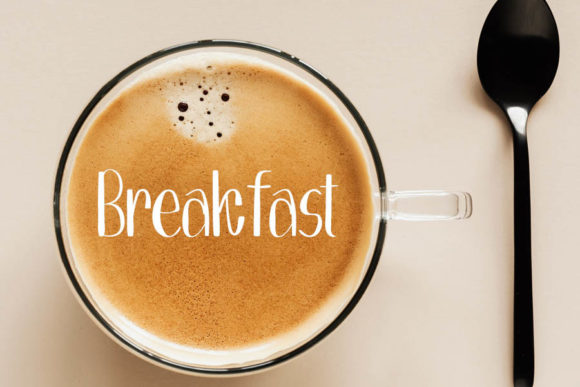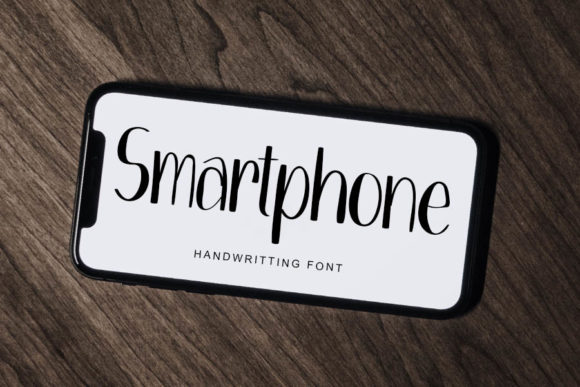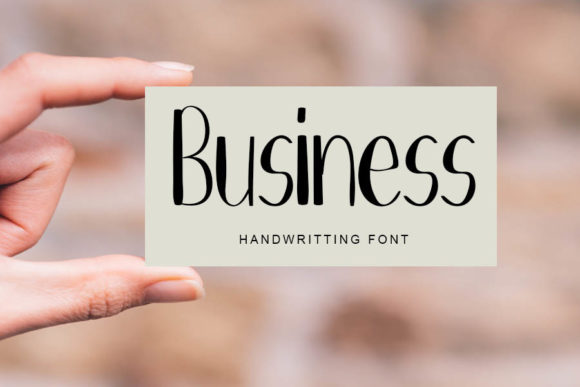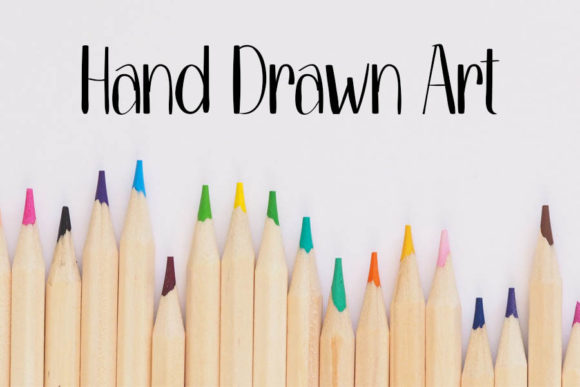
Fresh Milk Font
About Fresh Milk Font
Fresh Milk is a charming handwritten font that brings an authentic and personal touch to your designs. With its casual and natural appearance, it is particularly well-suited for creating chalkboard quotes and teaching materials.
The Fresh Milk font captures the essence of handwritten text, emulating the imperfect strokes and organic flow of a chalkboard. Its irregular letterforms and slightly textured appearance create a realistic and genuine feel, as if it were written by hand.
Using Fresh Milk in your designs adds a sense of warmth and approachability. The imperfect lines and varied letter sizes give the font a friendly and personal vibe, making it suitable for creating educational materials, inspirational quotes, and anything that requires a down-to-earth and relatable look.
This font is perfect for designing teaching materials such as worksheets, lesson plans, and handouts. Its handwritten style adds a touch of authenticity and a personal connection to the learning experience. Students will feel more engaged and connected to the content when it is presented in a handwritten format.
Fresh Milk is also great for creating chalkboard-inspired designs in various contexts. Whether you’re designing menus, signage, invitations, or social media graphics, this font brings a rustic and nostalgic charm that resonates with viewers.
Additionally, the versatility of Fresh Milk allows you to experiment with different styles and effects. You can use it as a standalone font or combine it with other typefaces to create unique compositions. Its handwritten look pairs well with illustrations, doodles, and other hand-drawn elements.
In summary, Fresh Milk is a handwritten font that adds a personal and realistic touch to your designs, particularly in the context of chalkboard quotes and teaching materials. Its imperfect lines and casual appearance create an authentic and approachable feel. Whether you’re designing educational resources or chalkboard-inspired designs, Fresh Milk brings a warm and down-to-earth vibe to your creations.